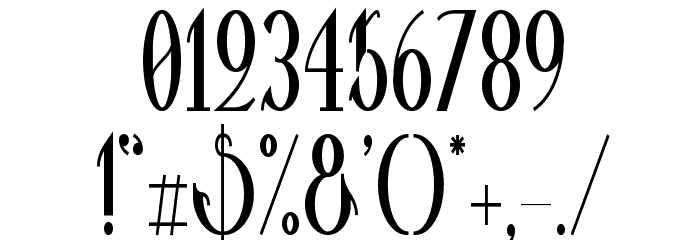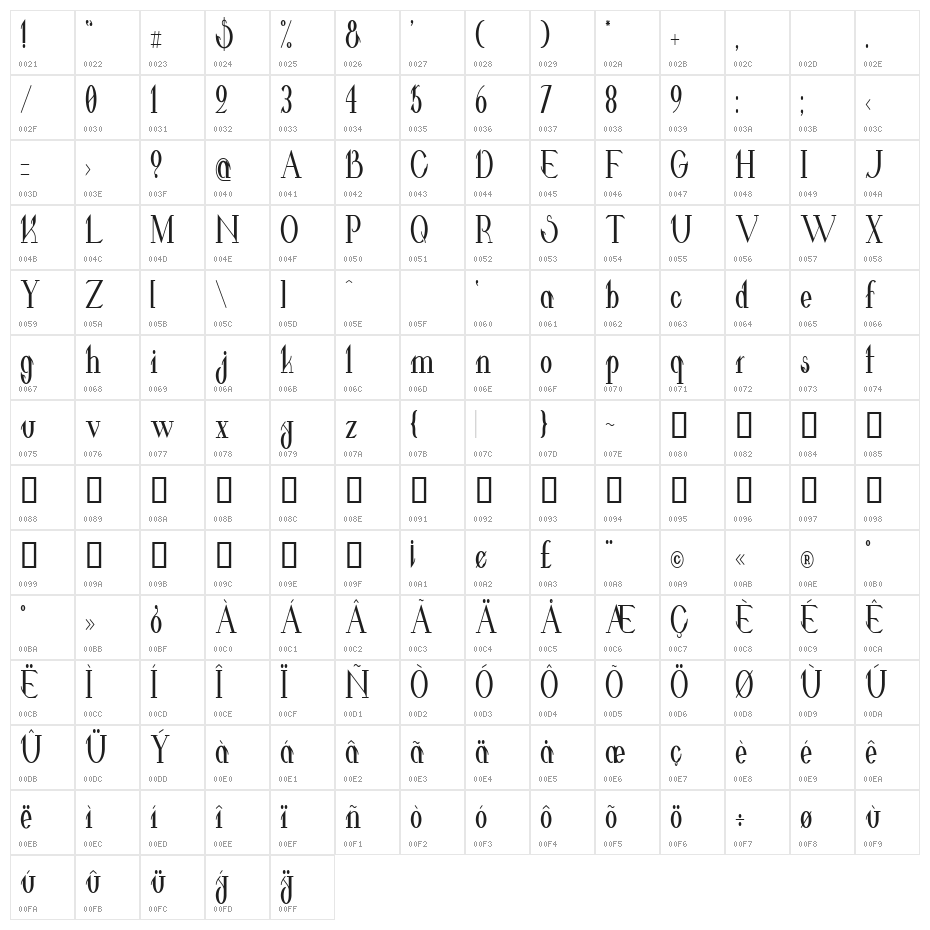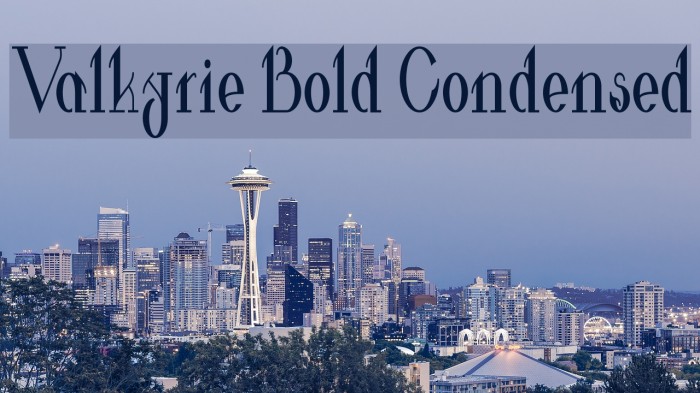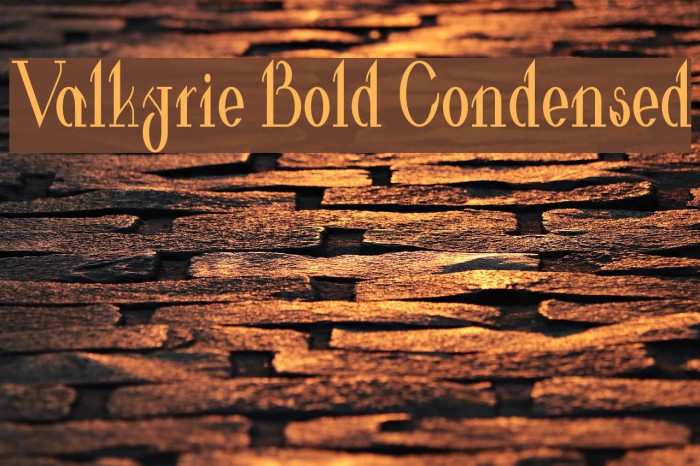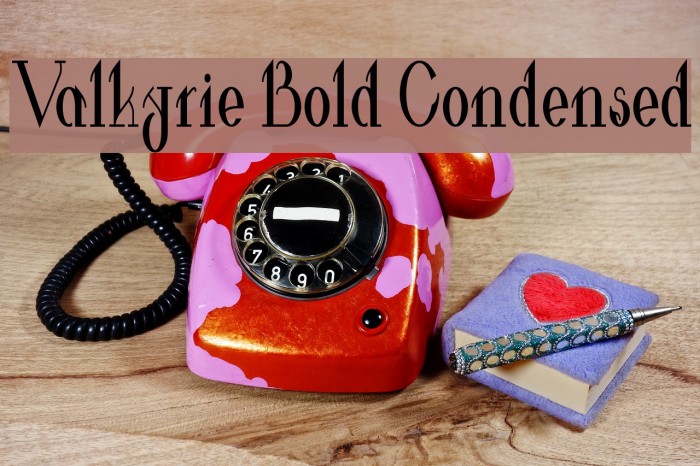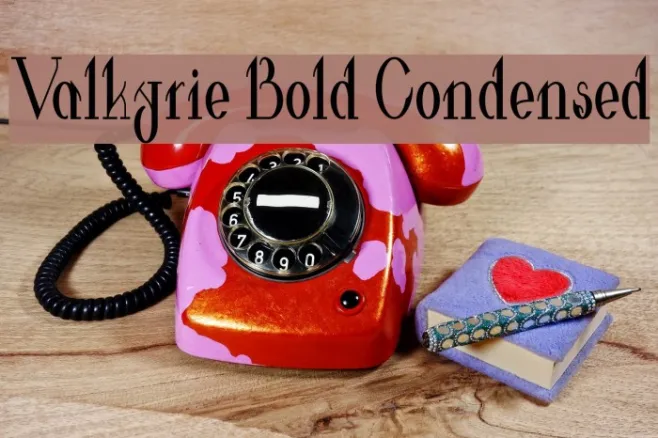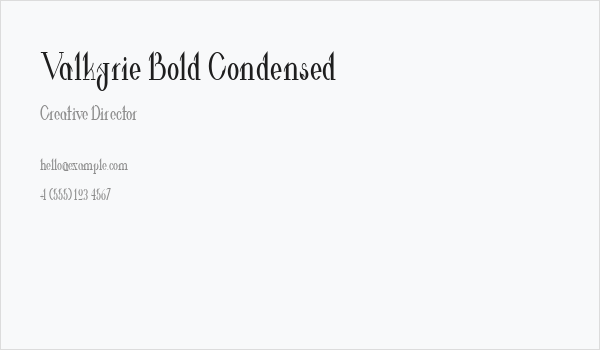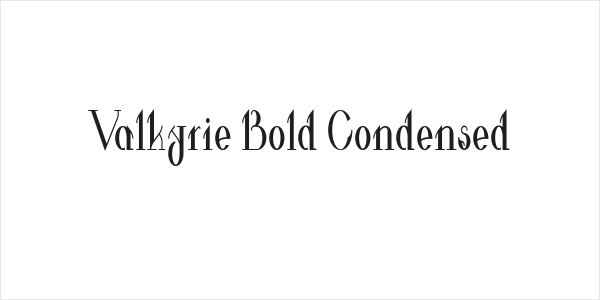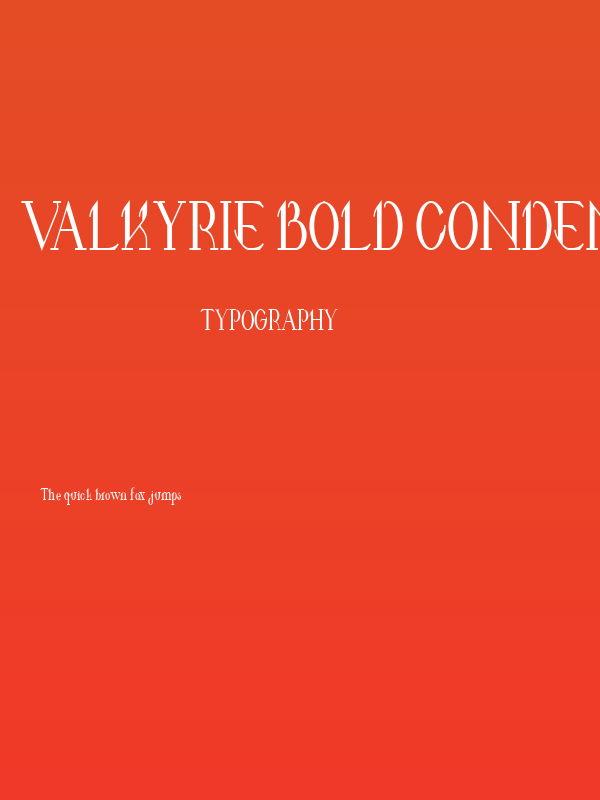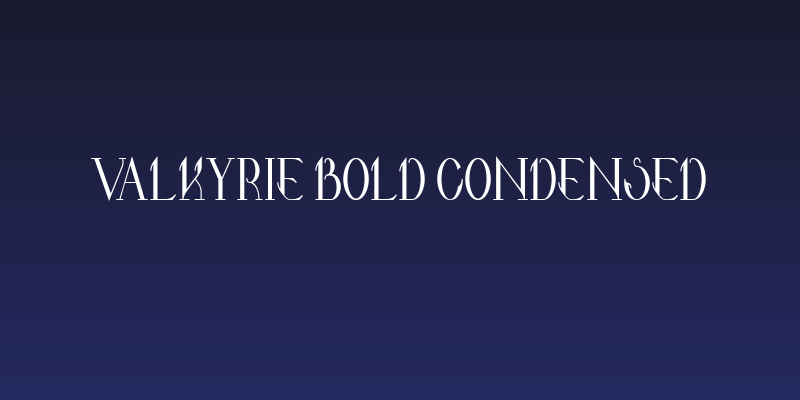
Valkyrie Bold Condensed Font
Valkyrie Bold Condensed Description
This font features a bold and condensed style with a unique blend of modern and classic elements. The uppercase letters are tall and narrow, with sharp serifs that give a strong, authoritative presence. The lowercase letters maintain a similar condensed form, offering a consistent look across different text sizes. Numbers are equally bold and condensed, ensuring readability while maintaining the font's distinct style. Special characters are designed with the same attention to detail, making them stand out without disrupting the overall aesthetic. The font's high contrast in stroke thickness adds to its striking appearance, making it ideal for impactful designs.